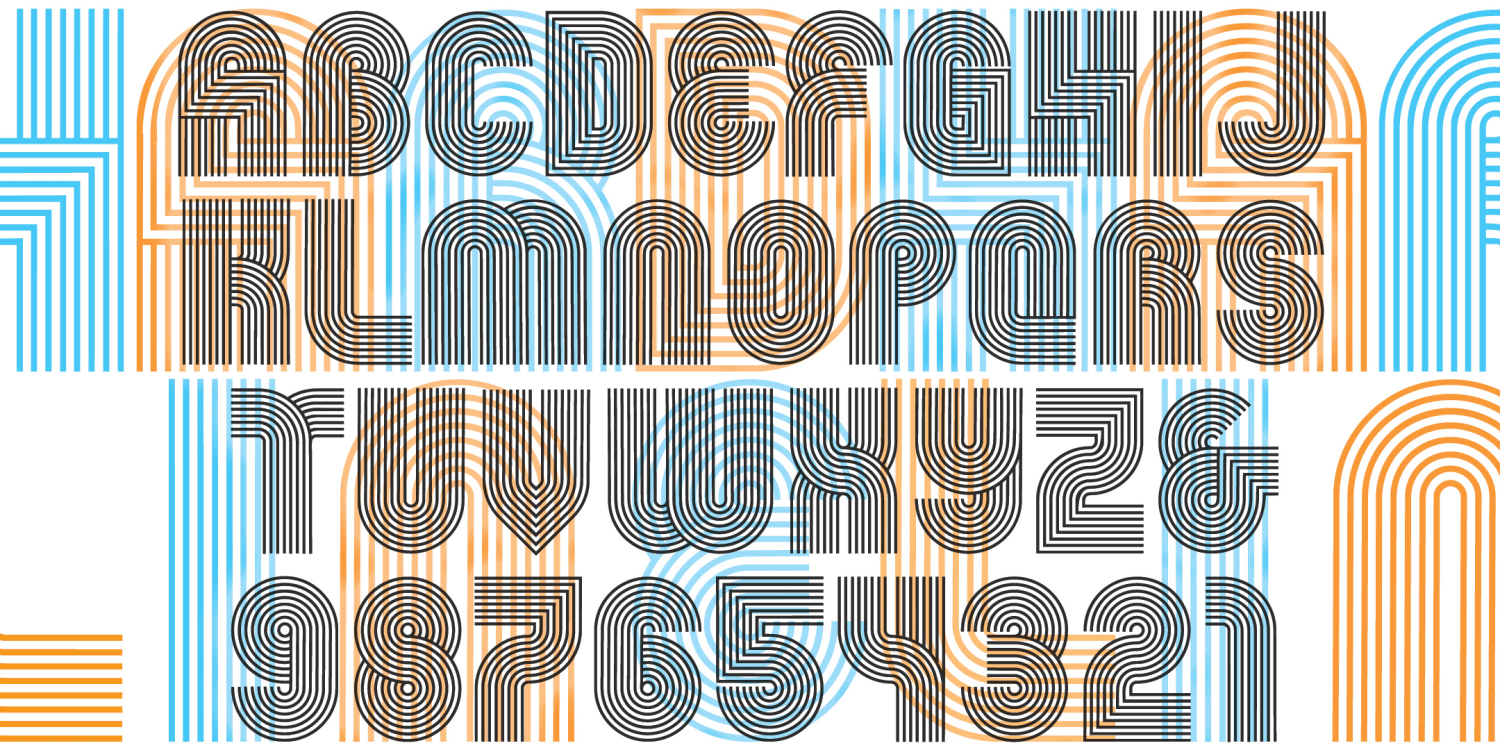
Hardline
About Hardline
HARDLINE is an Op Art font with a groovy, 60s/70s vibe: all geometric forms composed of parallel lines. It was inspired by just 2 letters I found on an envelope, and I expanded it from there. This font is really fun when it’s used big and kerned…